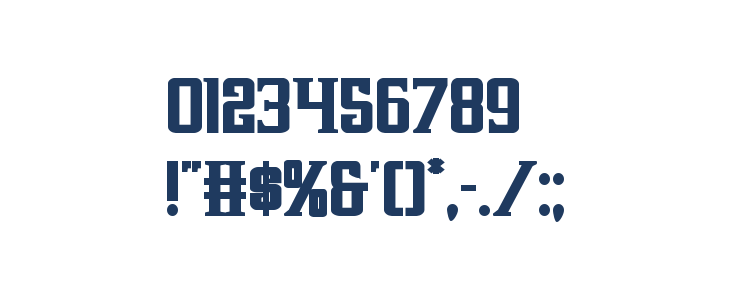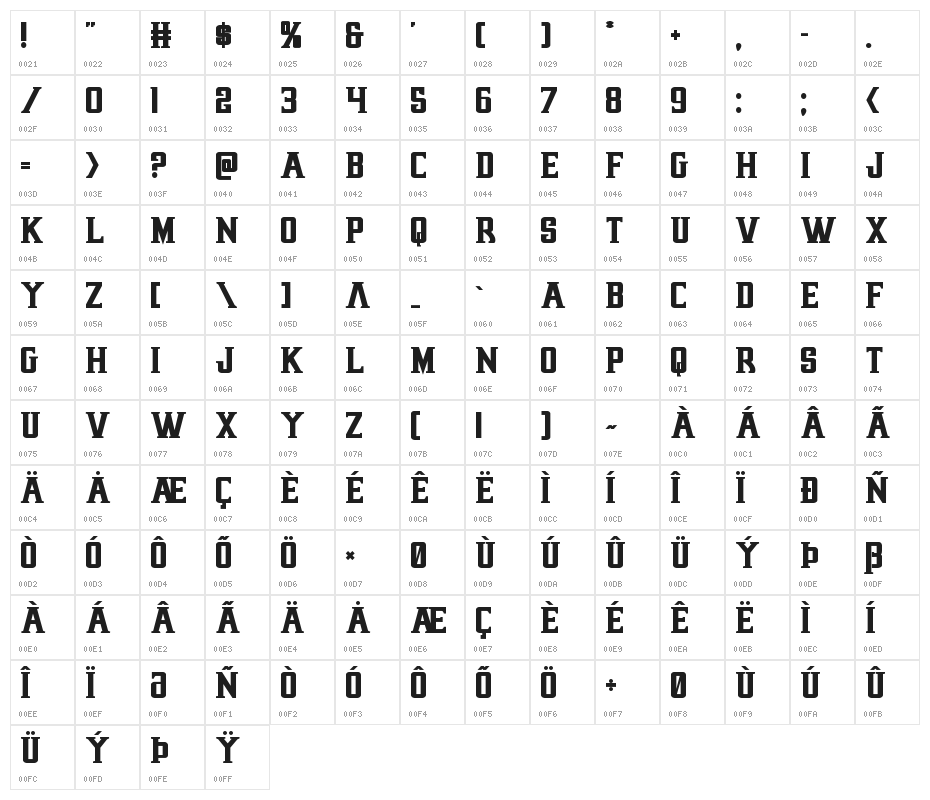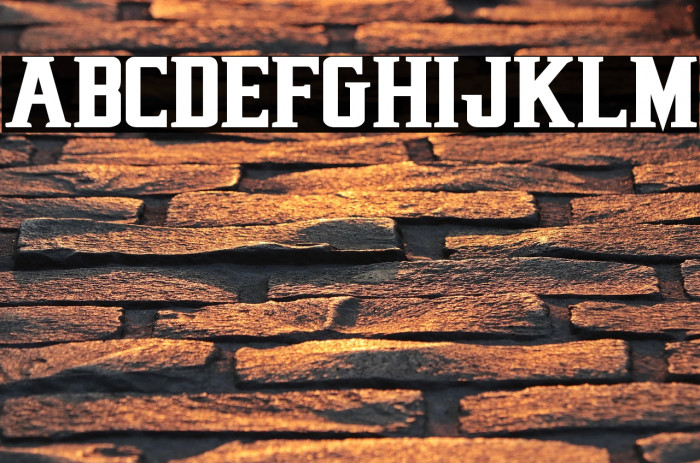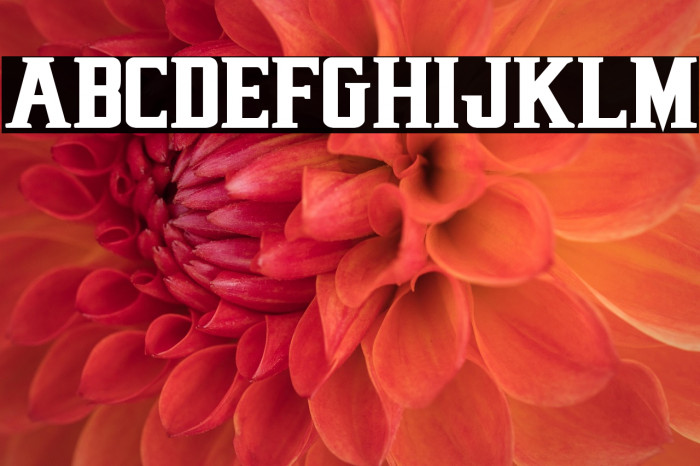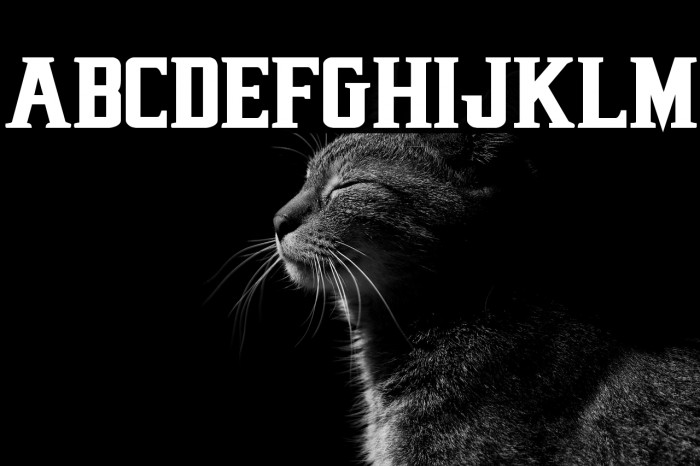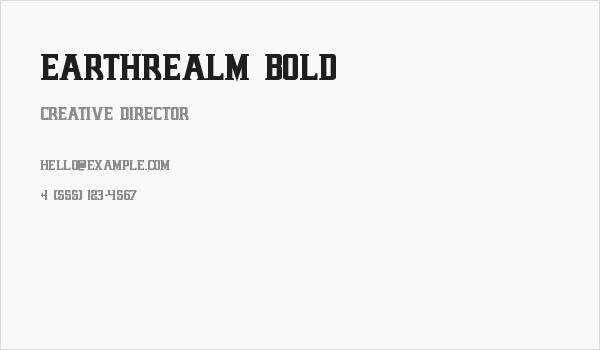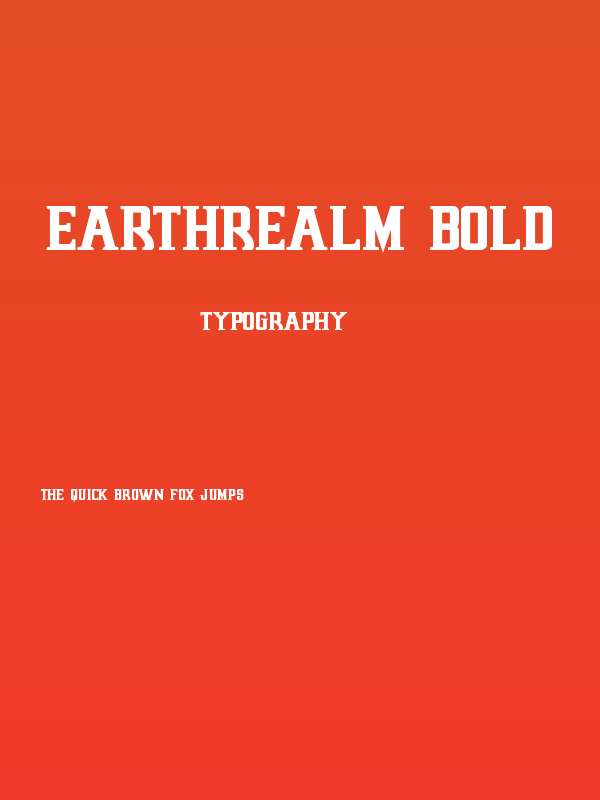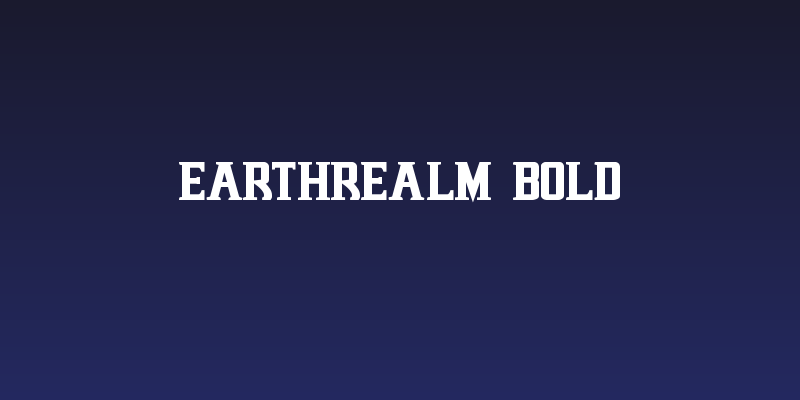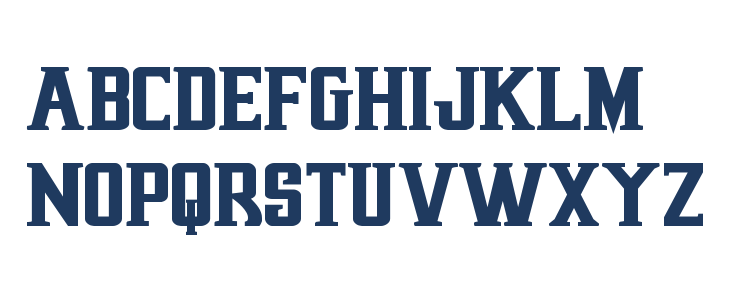
Earthrealm Bold Font
Earthrealm Bold Description
This font features a bold and robust design with strong, angular serifs that give it a commanding presence. The characters are uniformly wide, with a consistent stroke weight that enhances readability. The uppercase letters are particularly striking, with a geometric influence that adds a modern touch. The numerals and special characters maintain the same boldness, ensuring a cohesive look across all text. This font's style is reminiscent of vintage poster typography, yet it carries a contemporary flair that makes it versatile for various design needs.